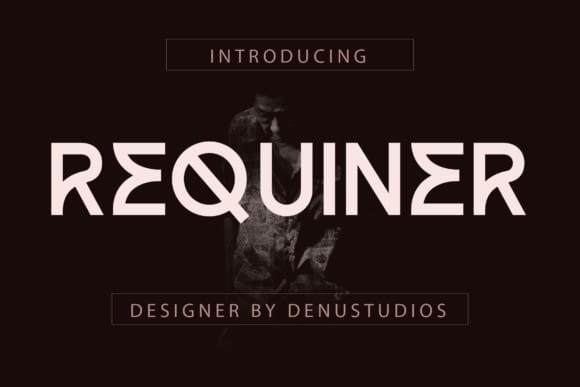
Requiner Font
Requiner Font is a modern and classic sans-serif typeface that has its own unique style & modern look. This typeface is perfect for an elegant & luxury logo, book or movie title design, fashion brand, magazine, clothes, lettering, quotes, and so much more.